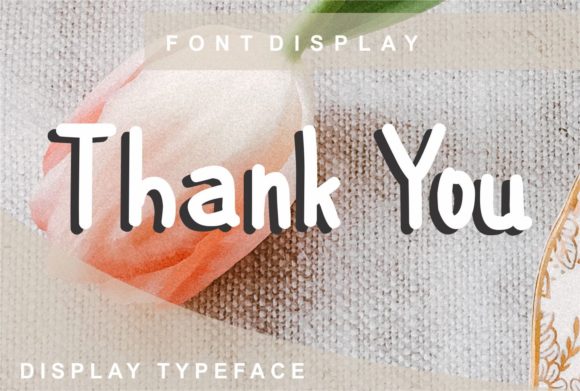
Introduction to Famon Font
There’s nothing quite like the rush of a new creative project. You sit down at your desk, laptop fired up, and a blank canvas staring back at you. The possibilities are endless, and the excitement is palpable. But, as any designer will tell you, the right font can make all the difference between a good design and a great one.
That’s where the Famon Font comes in – a sleek, modern display font that’s perfect for designers looking to add a touch of sophistication to their work. With its clean lines and transparent background, this high-quality font is a valuable resource for any creative project. And the best part? It’s available for free download, making it an accessible design resource for designers of all levels.
Whether you’re working on a logo, brochure, or social media graphic, the Famon Font is sure to inspire your next big project. So why settle for an ordinary font when you can have an extraordinary one? Discover the endless possibilities of the Famon Font and take your designs to the next level.
Key Features of Famon Font
- High-quality font design, ideal for creative projects and design resources.
- Transparent background, allowing for seamless integration into design elements.
- Includes a range of weights and styles, making it suitable for various design applications.
- Optimized for high-resolution displays, with a minimum resolution of 300 DPI.
- Comes in a range of sizes, from 12pt to 72pt, making it versatile for different design needs.
- Designed to be easily scalable, ensuring crisp and clear text even at small sizes.
Honest Review: Famon Font
As a designer, I’m always on the lookout for high-quality fonts to elevate my creative projects. Recently, I came across the Famon Font, and I must say, it’s a great addition to my design resource library.
- ✨ Beautiful, modern design: The Famon Font has a sleek and sophisticated look that’s perfect for a wide range of creative projects.
- ✨ Clear and legible: The font is highly legible, making it easy to read even in smaller sizes.
- ✨ Transparent background: The font comes with a transparent background, which is great for designers who need to layer their designs.
- ⚠️ Limited font weights: While the Famon Font has a range of font weights, it’s not as extensive as some other fonts on the market.
- ⚠️ Limited language support: The font may not support all languages, which could be a limitation for designers working on international projects.
Overall, I’m really impressed with the Famon Font. It’s a high-quality font that’s perfect for a wide range of creative projects. While it has some limitations, I think it’s a great addition to any design library.
Famon Font: A High-Quality Design Resource
Tips for Getting the Most Out of Famon Font
To get the most out of Famon Font, use it in combination with a transparent background to create a clean and modern look. You can also experiment with different font sizes and styles to add emphasis and create visual interest.
Common Use Cases for Famon Font
The Famon Font is ideal for use in creative projects, such as branding, packaging, and advertising. Its high-quality design and transparent background make it perfect for use in digital designs, from social media graphics to presentations.